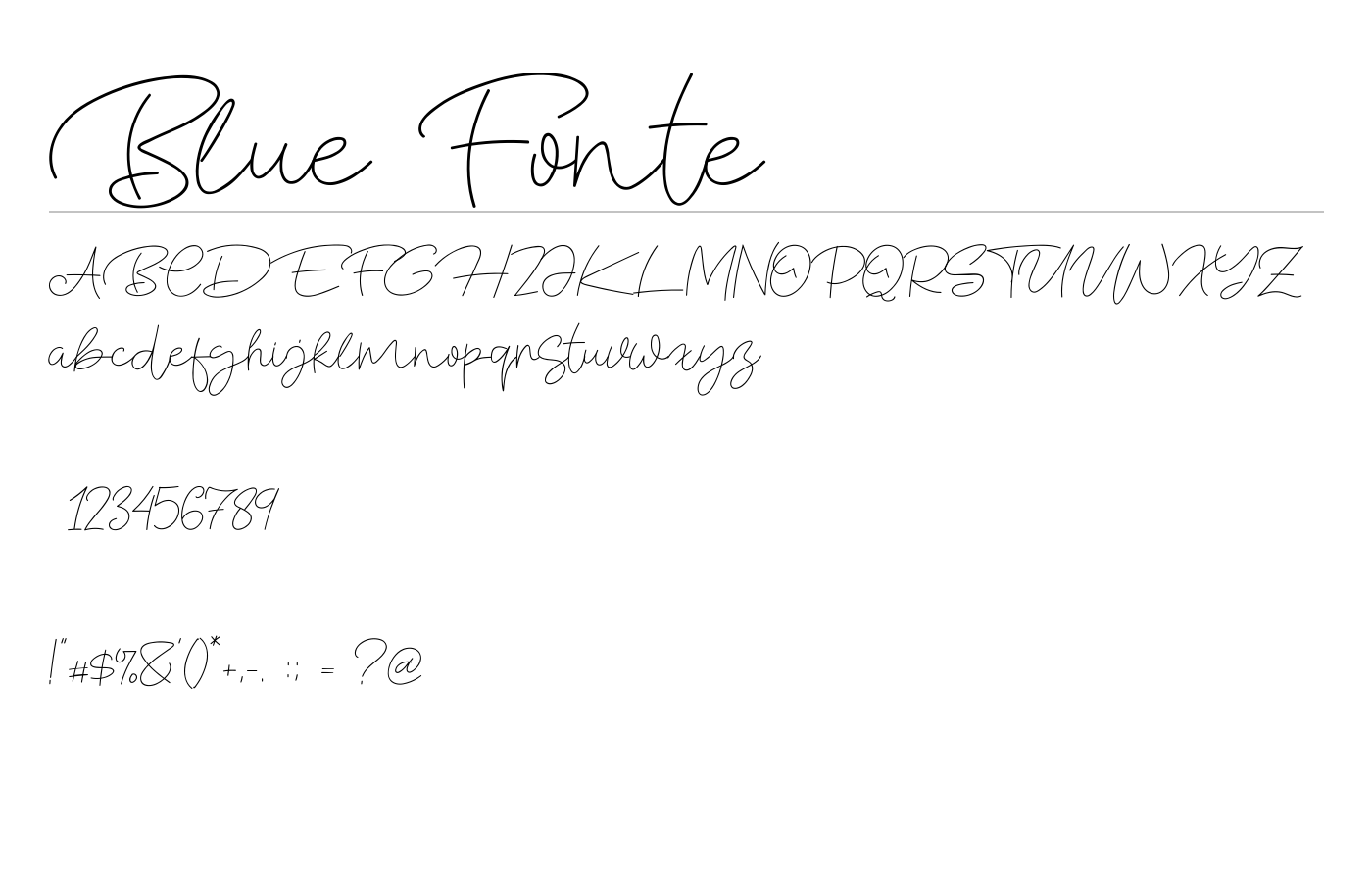
Blue Fonte Font is an elegant, delicate script typeface characterized by fine, flowing lines and a handwritten feel. Its airy, lightweight strokes and graceful curves make it perfect for adding a personal, sophisticated touch to invitations, branding, and creative projects that seek a stylish, refined atmosphere. This font works beautifully in decorative headlines or subtle accents where a touch of elegance is desired.
Blue Fonte Font
About Blue Fonte Font
| Font family | Blue Fonte Font |